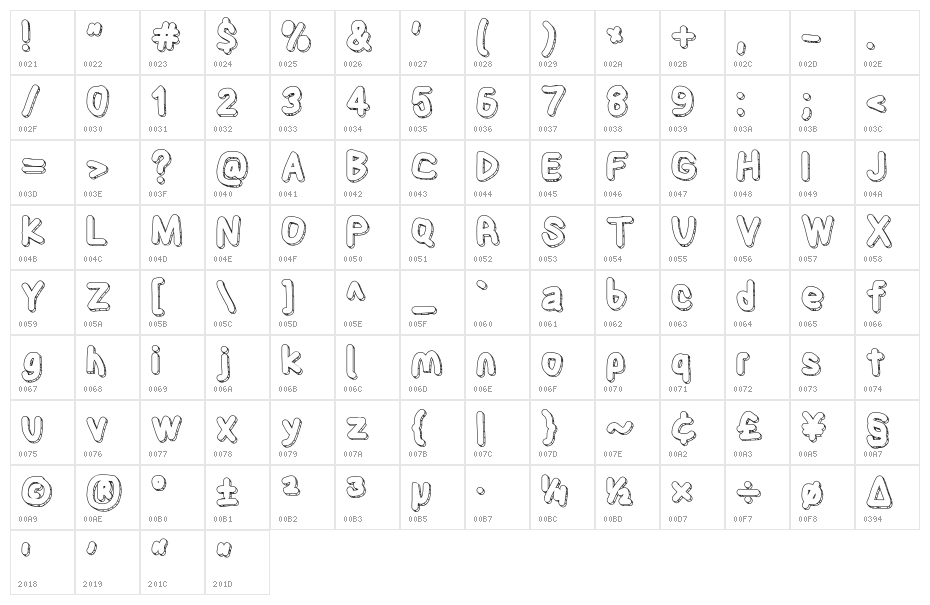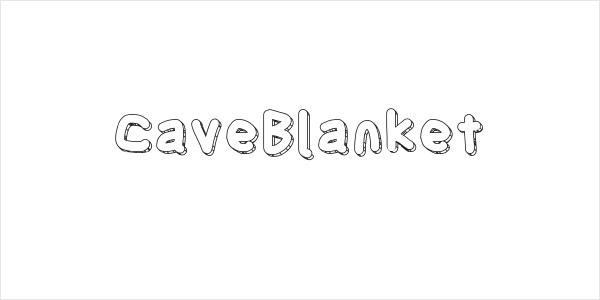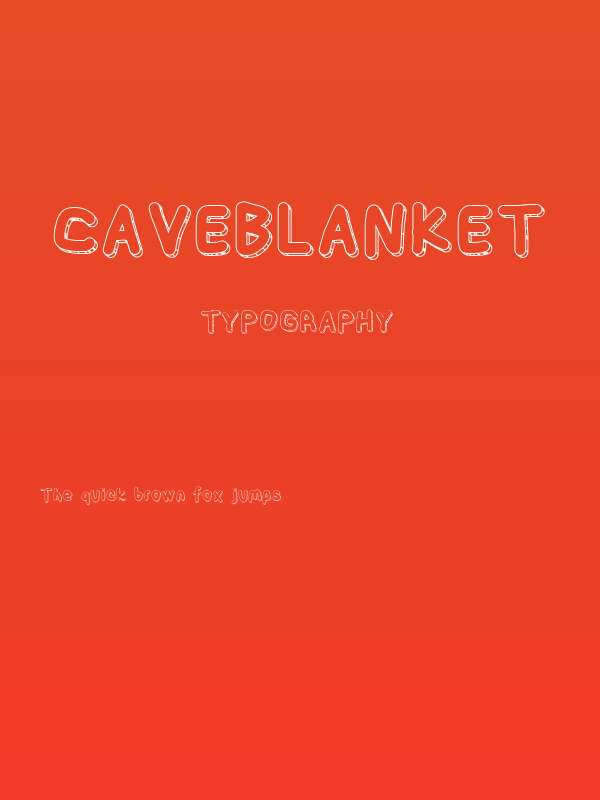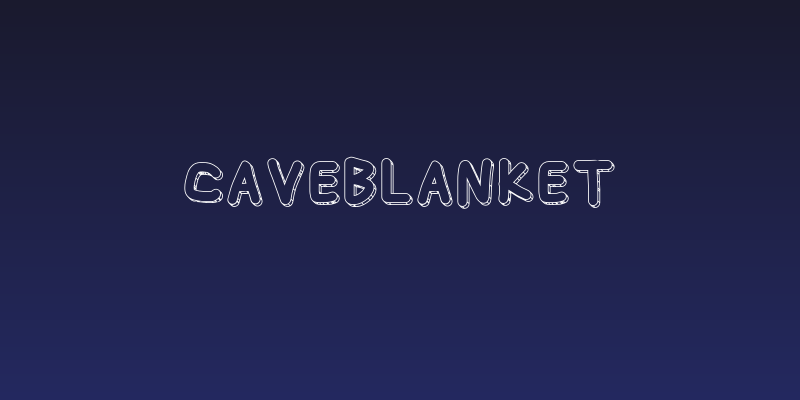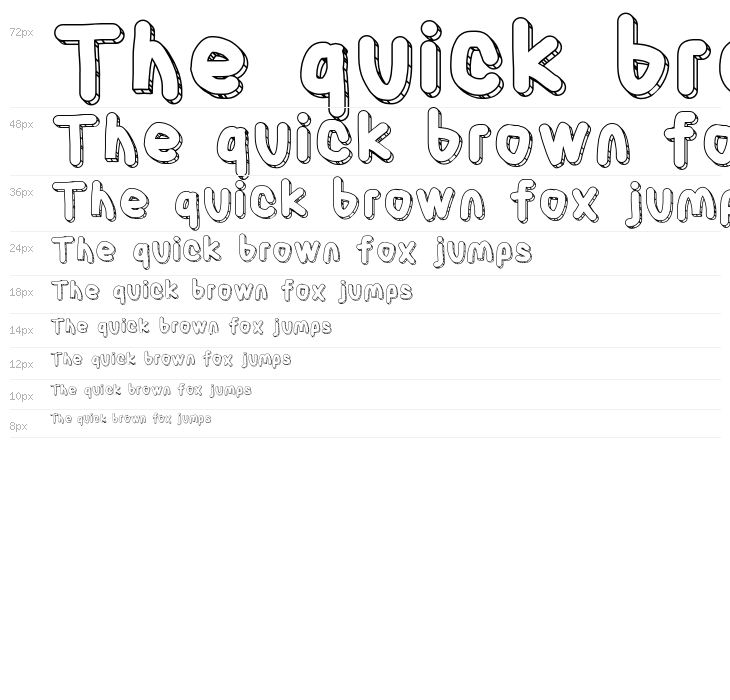
CaveBlanket Font
CaveBlanket Description
This playful and bold font features a hand-drawn, doodle-like style with a 3D effect. Each character is outlined with a thick, uneven stroke, giving it a whimsical and cartoonish appearance. The letters are slightly rounded and have a casual, informal feel, making them perfect for creative projects. The numbers and special characters maintain the same lively style, ensuring consistency across all text elements. The font's unique design makes it stand out, adding a fun and energetic vibe to any text.
| Proposed Projects | Ideal for children's books, comic strips, playful branding, and creative posters. |